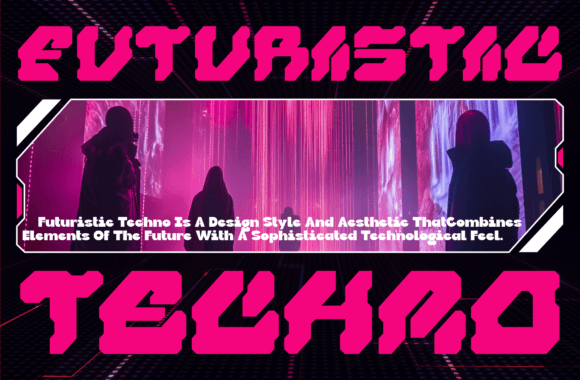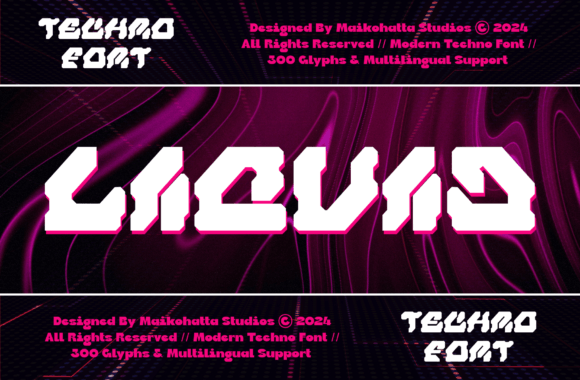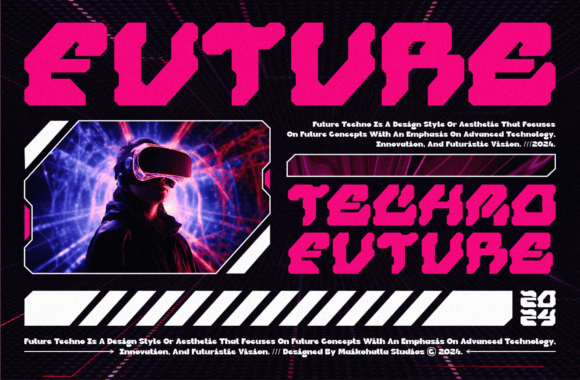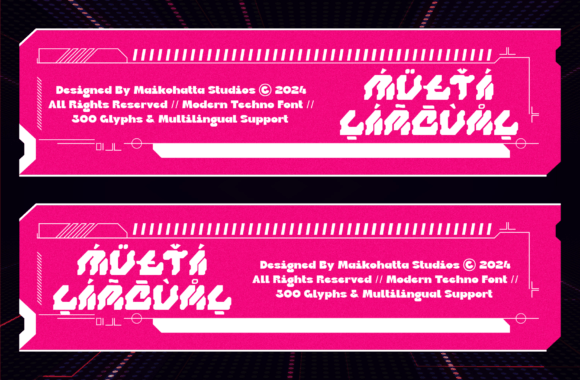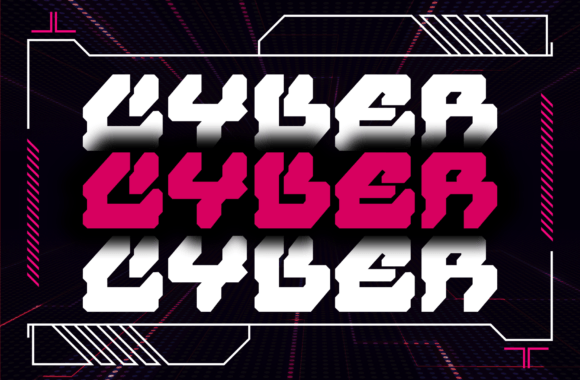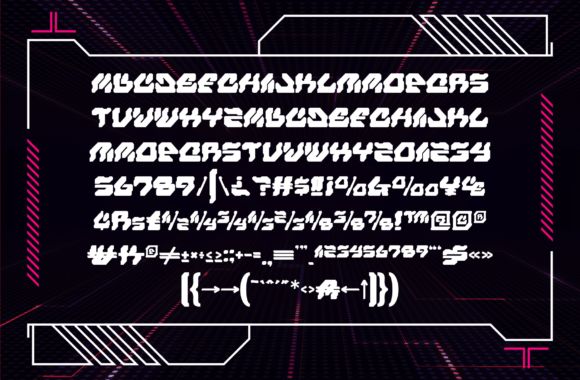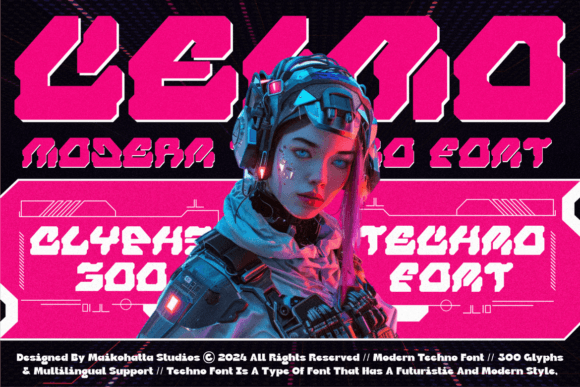
Introducing Ceimo Font: The Ultimate Modern Techno Typeface
In the rapidly evolving world of design, a font can make all the difference in conveying a message, expressing creativity, and capturing the essence of a brand. For those seeking a typeface that embodies the spirit of modern technology, look no further than Ceimo Font. This cutting-edge font is specifically designed to bring a sense of innovation, energy, and futurism to any design project.
What is Ceimo Font?
Ceimo Font is a type of lettering that features a futuristic design inspired by advanced technology. With its sharp lines, geometric letter shapes, and futuristic elements, this font is the perfect choice for projects related to technology, robotics, science, and modern lifestyle. Whether you’re designing a logo, website, poster, or any other creative project, Ceimo Font is sure to give it a sleek, modern twist.
Characteristics of Ceimo Font
Ceimo Font boasts a range of characteristics that make it stand out from other typefaces. Some of its key features include:
- Sharp Lines: Ceimo Font features sharp, clean lines that give it a crisp, modern look.
- Geometric Letter Shapes: The font’s geometric letter shapes add to its futuristic feel, making it perfect for designs that require a sense of innovation and technology.
- Futuristic Elements: Ceimo Font incorporates futuristic elements that evoke a sense of advanced technology and modernity.
Use Cases for Ceimo Font
Ceimo Font is an incredibly versatile typeface that can be used in a wide range of design projects. Some of the most popular use cases include:
- Logo Design: Ceimo Font is perfect for creating logos that require a modern, futuristic touch.
- Website Design: The font’s clean lines and geometric shapes make it ideal for website designs that require a sleek, modern look.
- Poster Design: Ceimo Font is great for creating posters that need to grab attention and convey a sense of innovation and energy.
- Technology and Robotics: The font’s futuristic design makes it a natural fit for projects related to technology, robotics, and science.
Benefits of Using Ceimo Font
There are many benefits to using Ceimo Font in your design projects. Some of the most significant advantages include:
- Modernity: Ceimo Font brings a sense of modernity and innovation to any design, making it perfect for projects that require a fresh, contemporary look.
- Versatility: The font’s versatility makes it suitable for a wide range of design projects, from logos and websites to posters and more.
- Energy: Ceimo Font’s futuristic design injects energy and dynamism into any design, making it perfect for projects that require a bold, attention-grabbing look.
Tips for Using Ceimo Font
To get the most out of Ceimo Font, here are a few tips to keep in mind:
- Use it sparingly: While Ceimo Font is a beautiful typeface, it’s best used sparingly to avoid overwhelming the design.
- Pair it with other fonts: Ceimo Font pairs well with other modern fonts, so don’t be afraid to experiment with different combinations.
- Experiment with colors: The font’s futuristic design looks great in a range of colors, so don’t be afraid to try out different options.
In conclusion, Ceimo Font is a game-changing typeface that’s perfect for designers and crafters looking to bring a sense of modernity, innovation, and energy to their design projects. With its sharp lines, geometric letter shapes, and futuristic elements, this font is sure to make a statement in any design. Whether you’re working on a logo, website, poster, or any other creative project, Ceimo Font is the ultimate modern techno typeface.